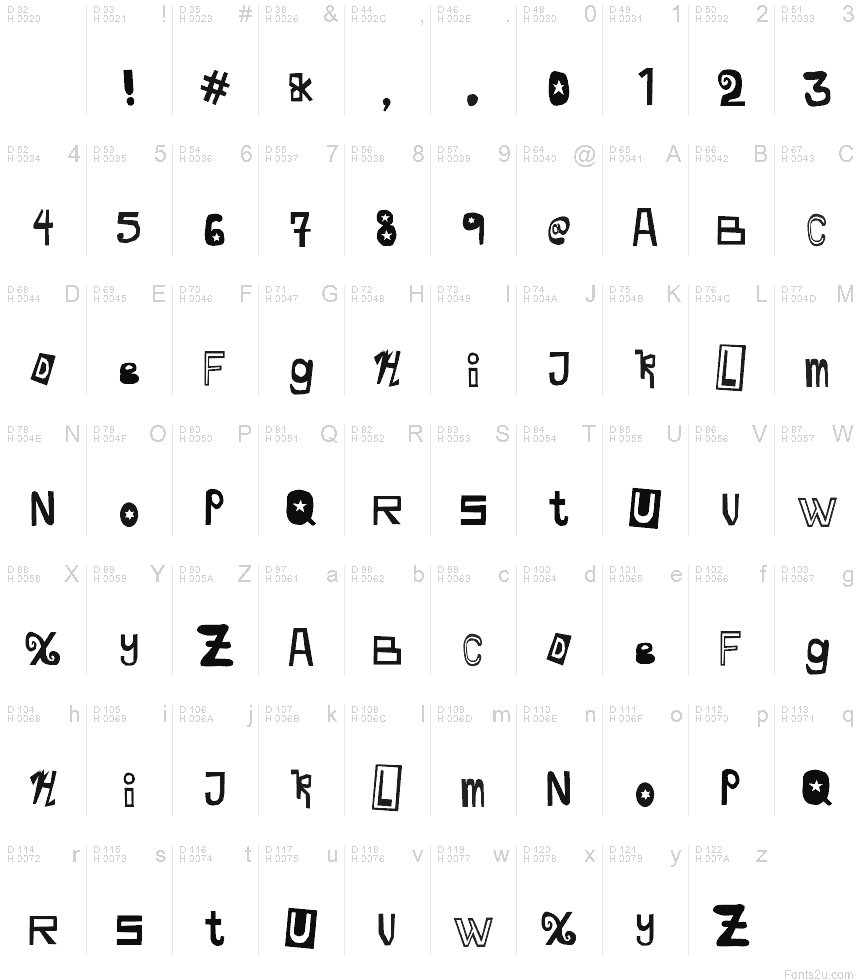
Synergy Bliss
(c) Heaven Castro Studios 2017. Black Rock Shooter (c) BRS Project 2010-2017. All Rights Reserved. Synergy Bliss is a bizzaire ramson-note-look-a-like whimsical design.